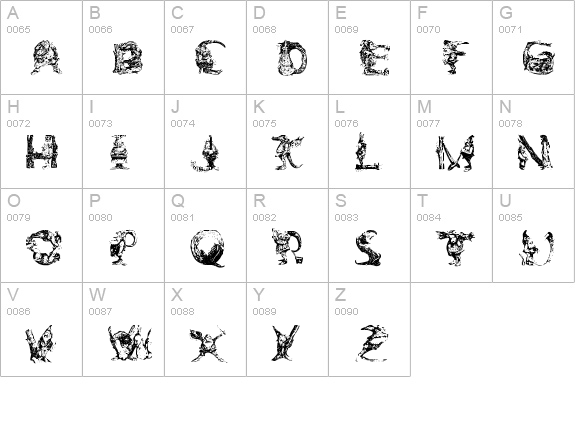
Elfabet Decorative font is a whimsical and enchanting typeface that brings a touch of magic to any design project. With its delicate swirls and elegant curves, this font captures the essence of fantasy and imagination. Perfect for adding a playful and fairy-tale quality to invitations, greeting cards, posters, and more, Elfabet Decorative font is sure to captivate and delight your audience. The best part? Elfabet Decorative font is completely free to download at FontsMarket.com. So go ahead and add a touch of enchantment to your designs with this stunning and charming typeface.